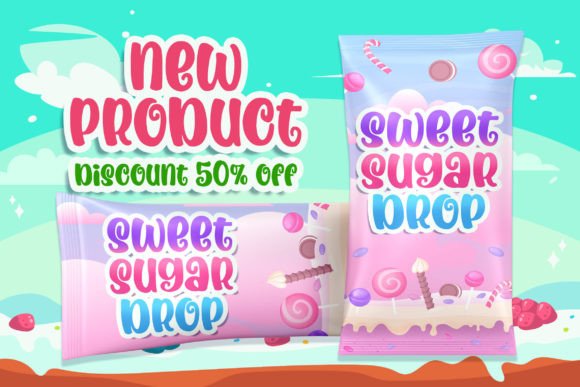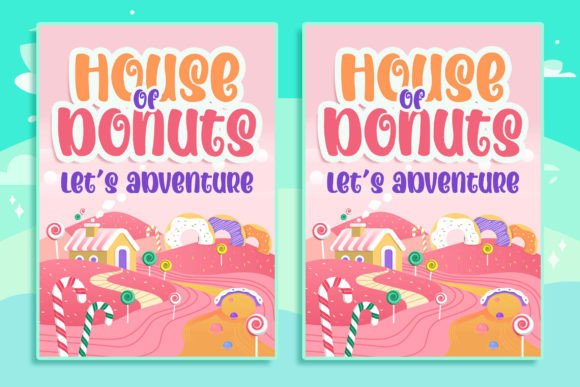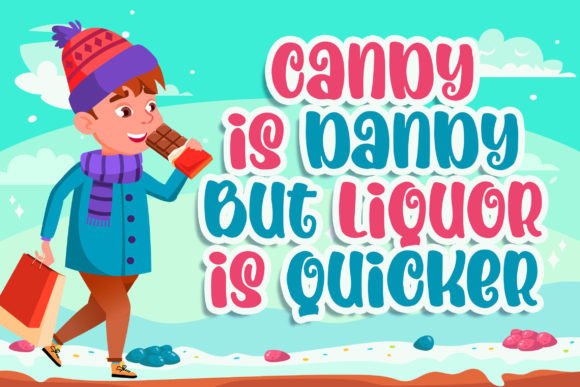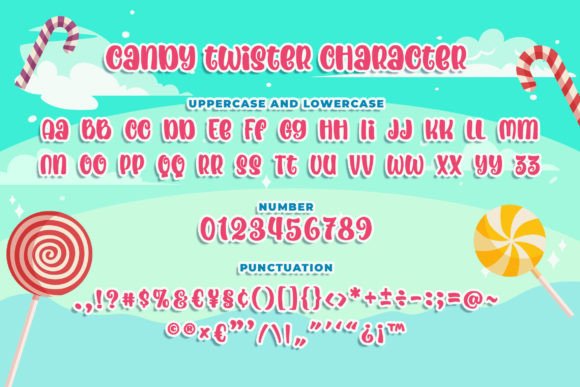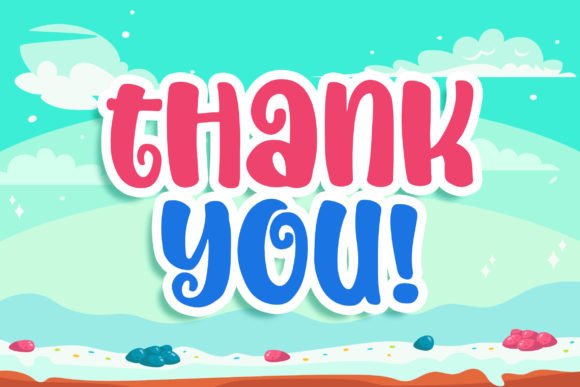
Candy Twister Font: Unleash Your Creativity with this Playful and Bold Display Font
Are you looking for a cartoon playful font that stands out and inspires creativity, imagination, and endless fun? Look no further! Introducing Candy Twister, a unique and playful display font that is sure to capture the attention of your audience. With its bouncy, bold style and excellent aesthetic appeal, this font is perfect for a wide range of design projects.
What is Candy Twister Font?
Candy Twister is a display font designed to add a touch of playfulness and fun to your designs. Its bold and bouncy style makes it perfect for creating eye-catching headlines, titles, and logos. The font is crafted with a high level of aesthetics, ensuring that it looks great in various design applications.
Key Features of Candy Twister Font
- Playful and Cartoon Style: Candy Twister font has a playful and cartoon style that is sure to appeal to a wide range of audiences, especially children and young adults.
- Bouncy and Bold: The font has a bouncy and bold style that adds energy and excitement to your designs.
- High Aesthetic Appeal: The font is crafted with a high level of aesthetics, ensuring that it looks great in various design applications.
- Versatile: Candy Twister font can be used for a wide range of design projects, including book covers, posters, packaging, merchandise, logotypes, and more.
Use Cases for Candy Twister Font
Candy Twister font is perfect for a wide range of design projects, including:
- Book Covers: Add a touch of playfulness and fun to your book covers with Candy Twister font.
- Posters: Create eye-catching posters with Candy Twister font that are sure to grab the attention of your audience.
- Packaging: Use Candy Twister font to add a playful touch to your product packaging.
- Merchandise: Create fun and playful merchandise, such as t-shirts, stickers, and toys, with Candy Twister font.
- Logotypes: Use Candy Twister font to create a unique and memorable logo for your brand.
Why Choose Candy Twister Font?
There are many reasons why you should choose Candy Twister font for your design projects. Here are a few:
- Unique and Playful Style: Candy Twister font has a unique and playful style that is sure to stand out from the crowd.
- High Quality: The font is crafted with a high level of aesthetics, ensuring that it looks great in various design applications.
- Versatile: Candy Twister font can be used for a wide range of design projects, making it a great addition to your font library.
- What is Candy Twister font?: Candy Twister font is a unique and playful display font with a bouncy, bold style.
- What is Candy Twister font used for?: Candy Twister font can be used for a wide range of design projects, including book covers, posters, packaging, merchandise, logotypes, and more.